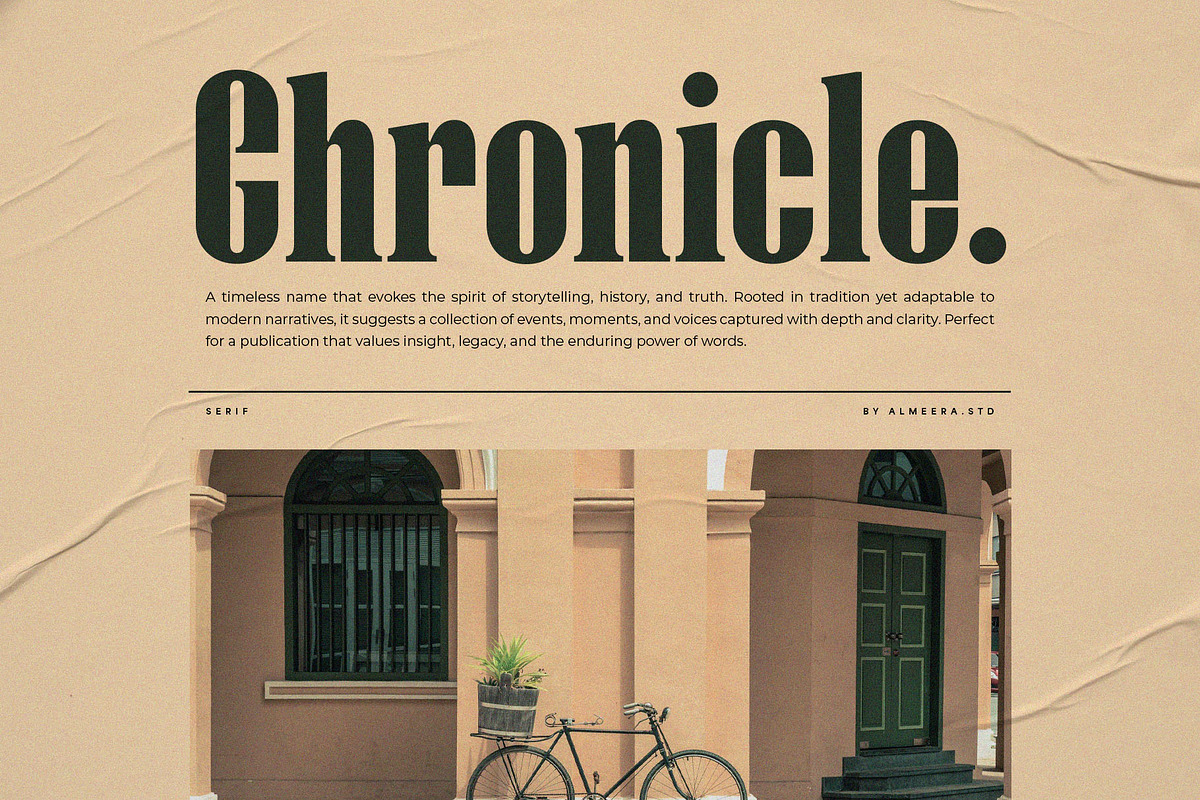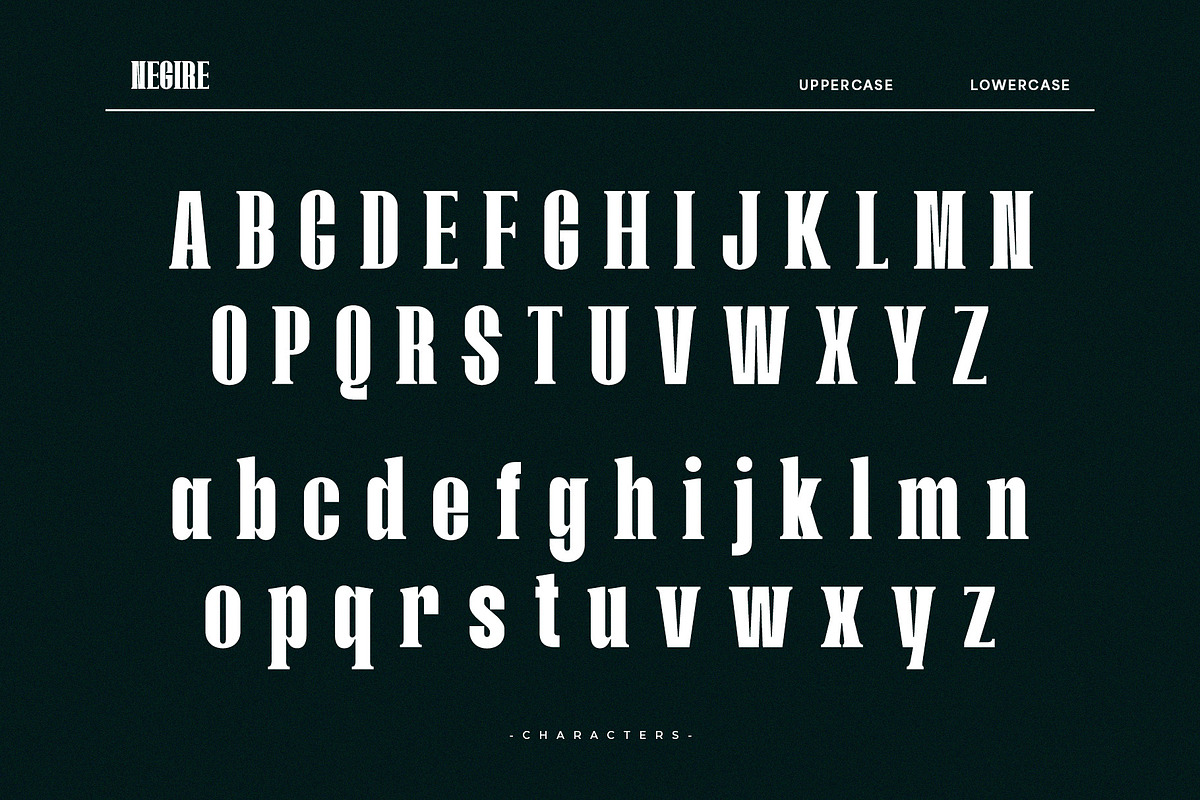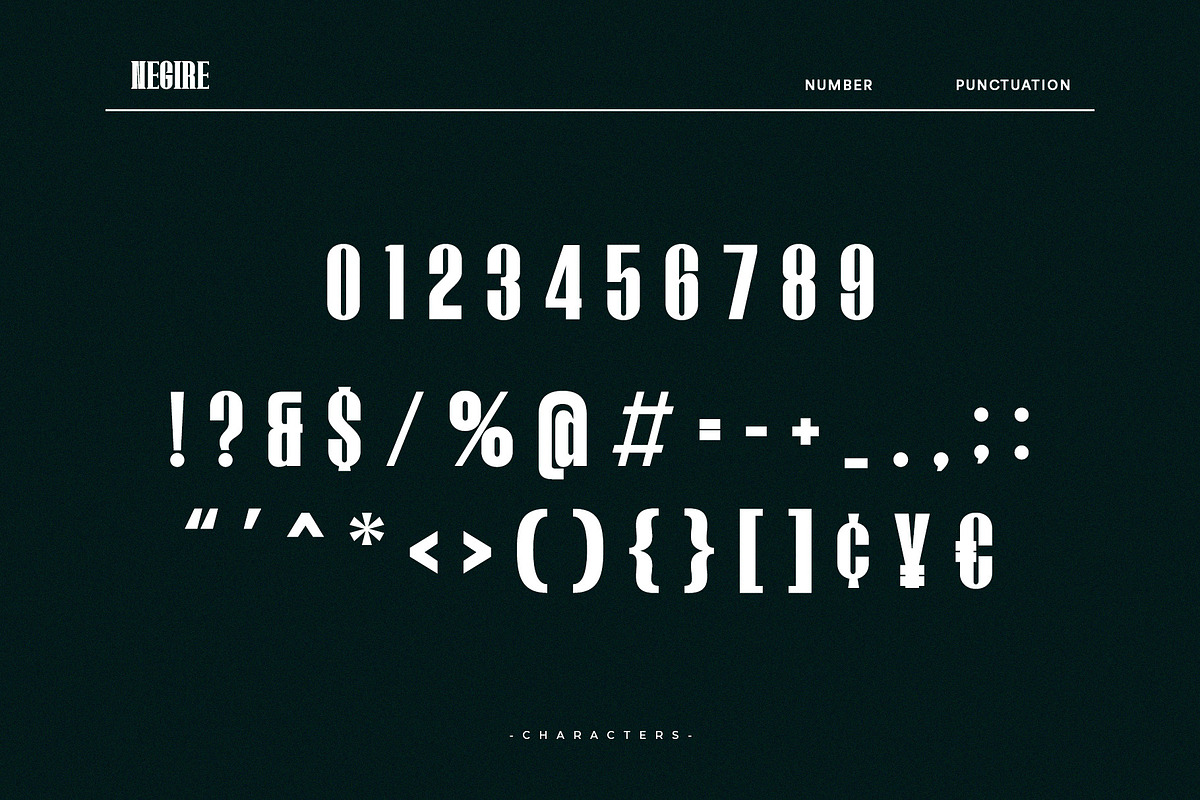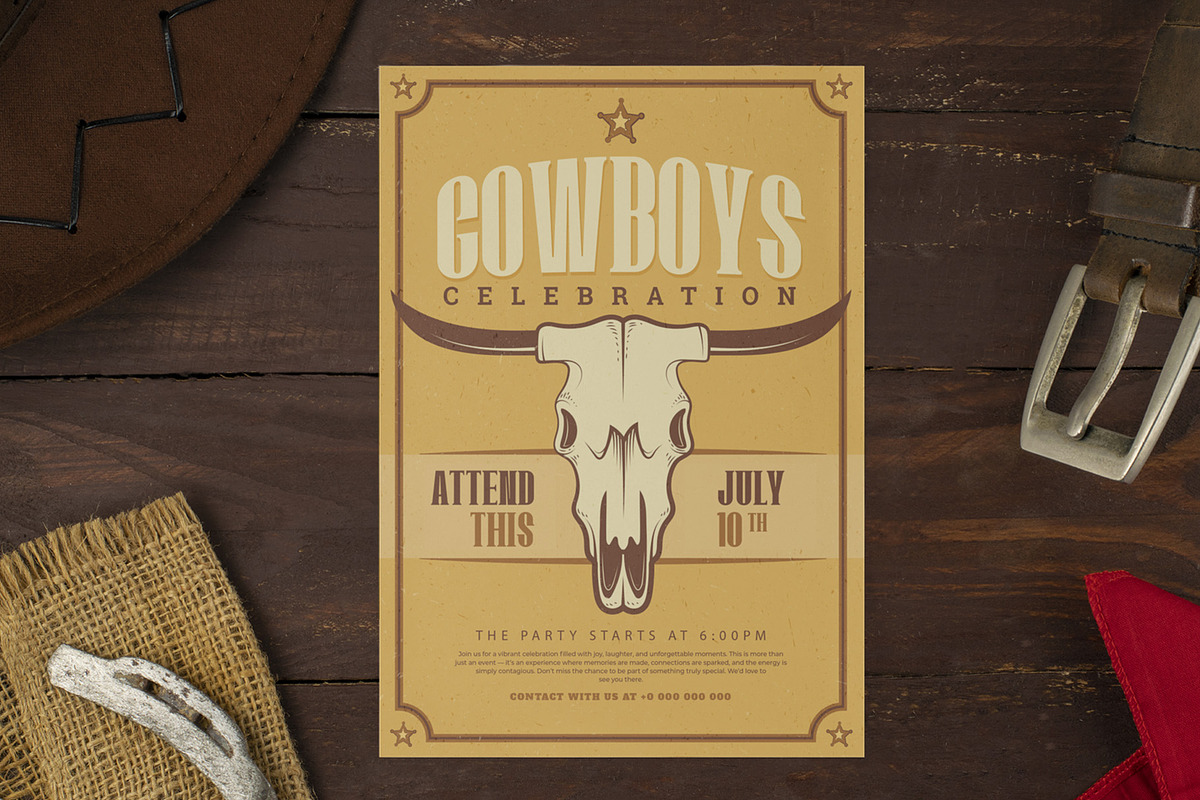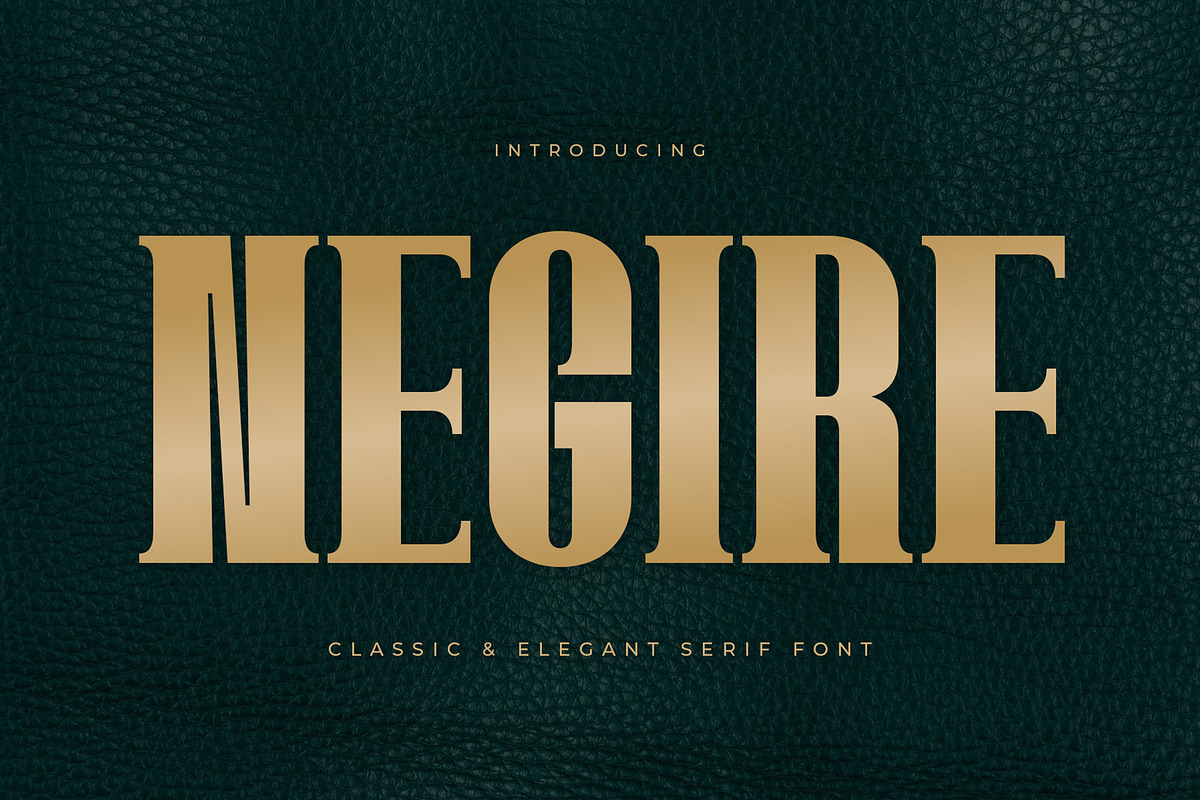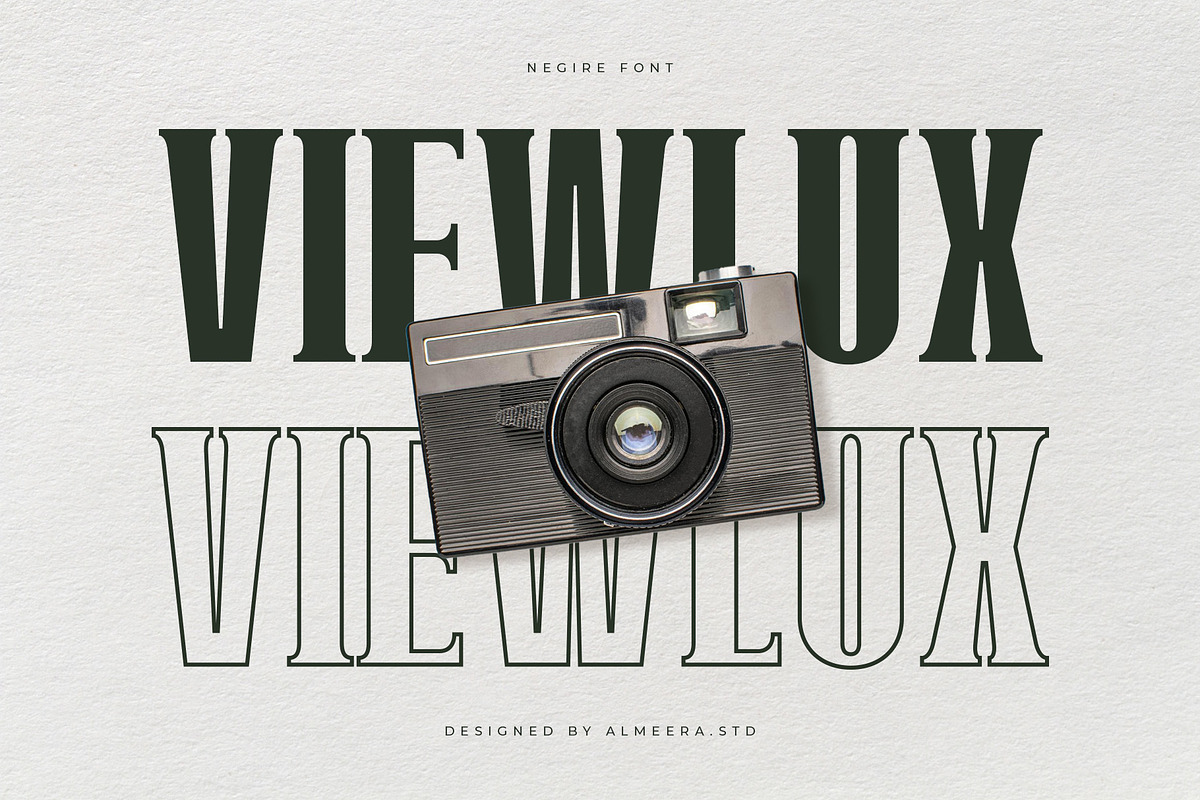
Negire
Negire is an elegant modern serif font made for high-end aesthetics. With graceful contrast, distinctive serifs, and fluid proportions, it’s designed for upscale branding, editorial design, and refined visual storytelling. Negire combines classic typographic charm with a sophisticated modern spirit.